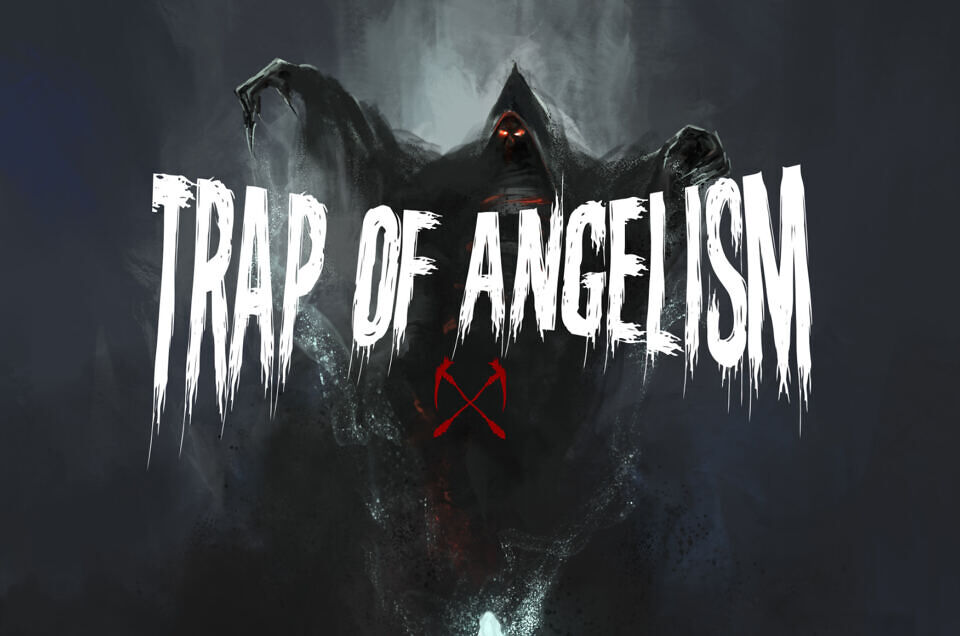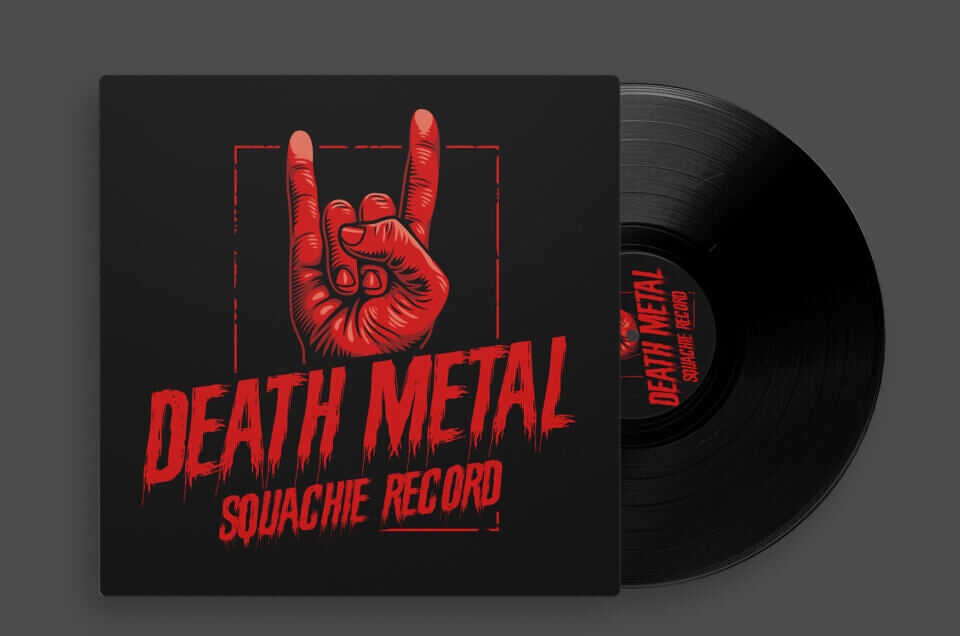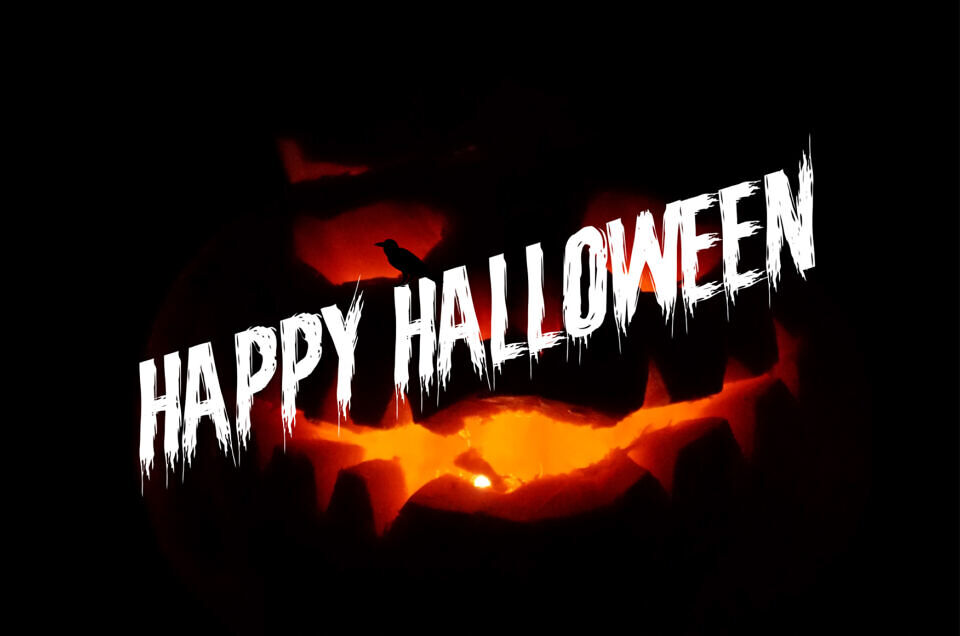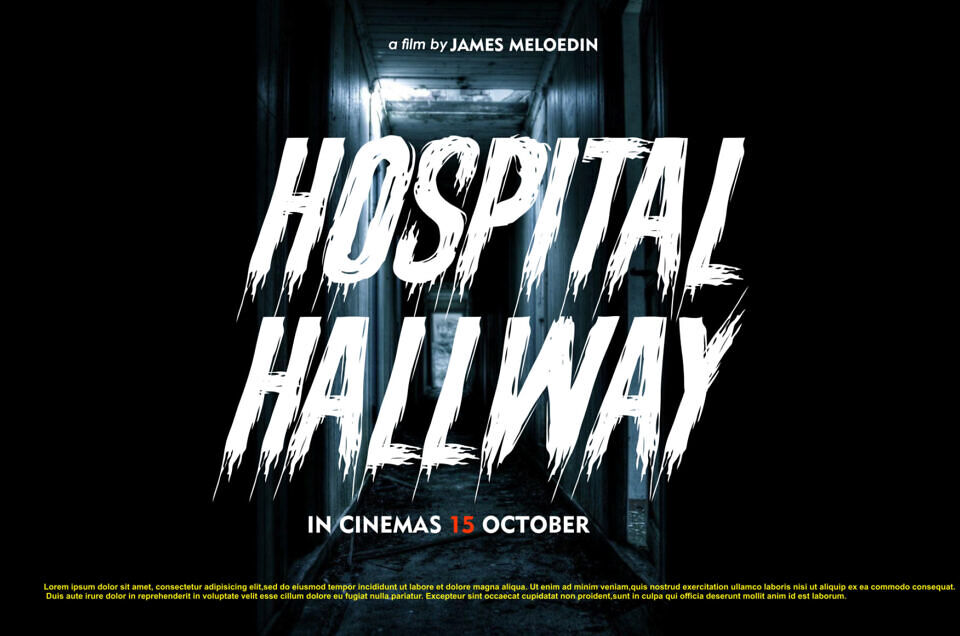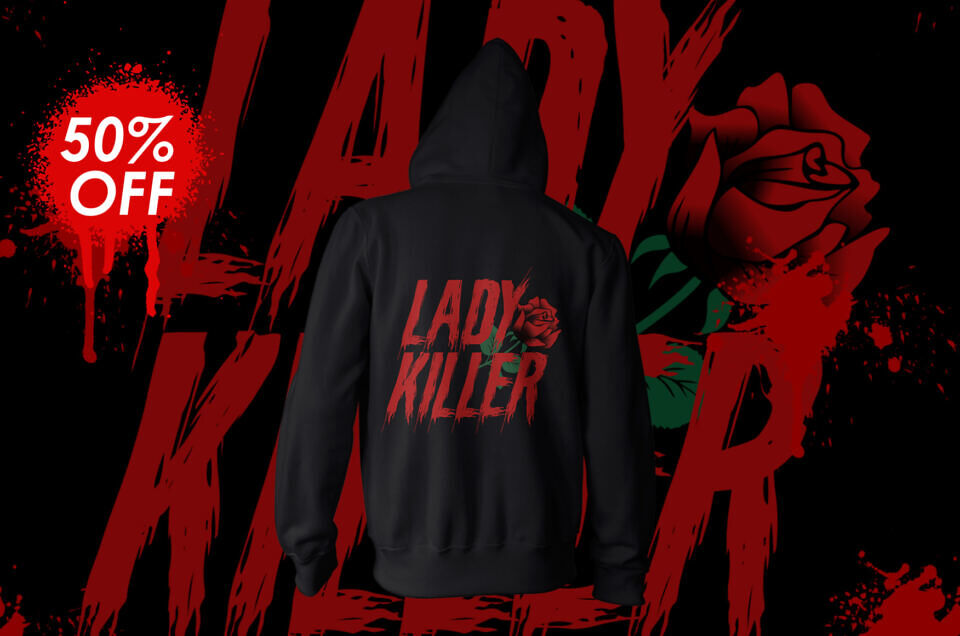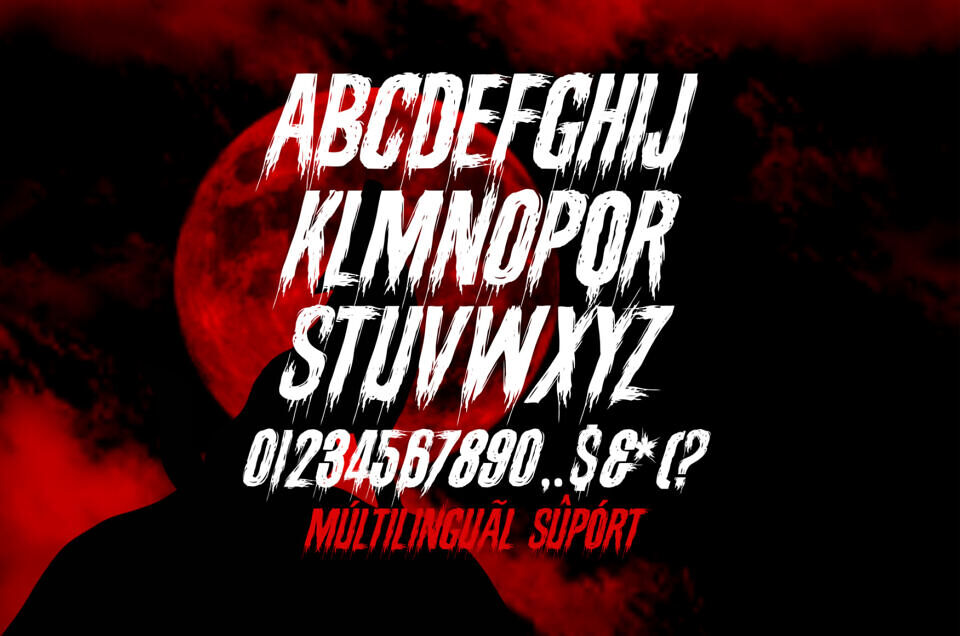
Typography is one of the most powerful tools to deliver attitude and identity. For bands, designers, and creators who want their work to scream with energy, Death Stinger – Deathmetal Brush Font is the perfect choice. Built entirely in all caps, this deathmetal brush font combines aggressive strokes, sharp angles, and wild brush textures to create an extreme and unforgettable presence.
From metal band logos to album covers and heavy posters, Death Stinger gives your design the edge it deserves. With its raw, hand-brushed aesthetic and intense visual impact, this deathmetal brush font doesn’t just speak—it shouts.